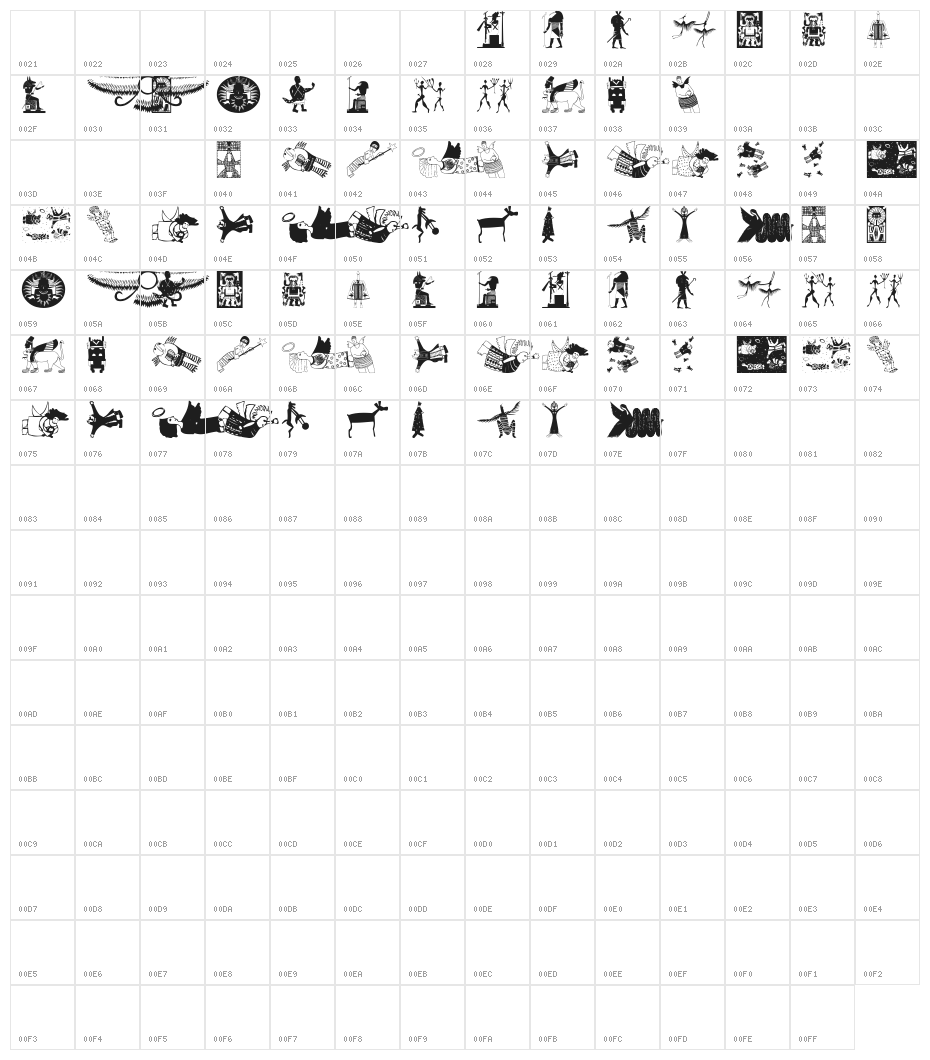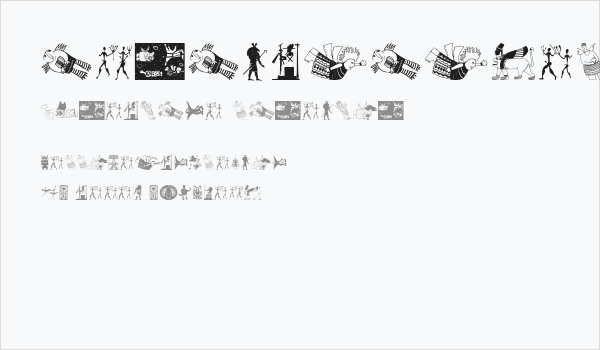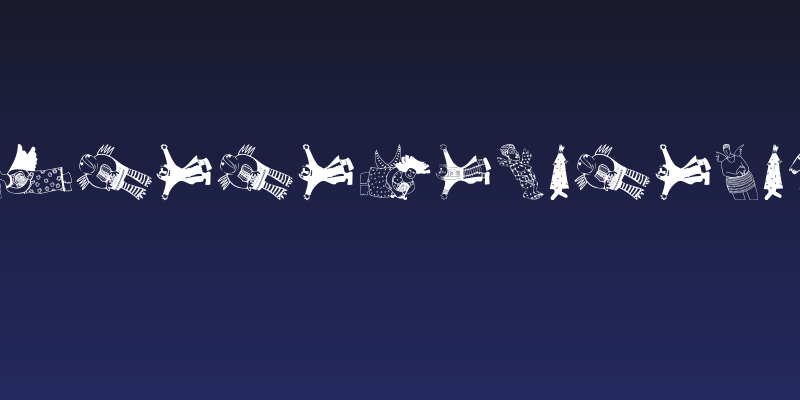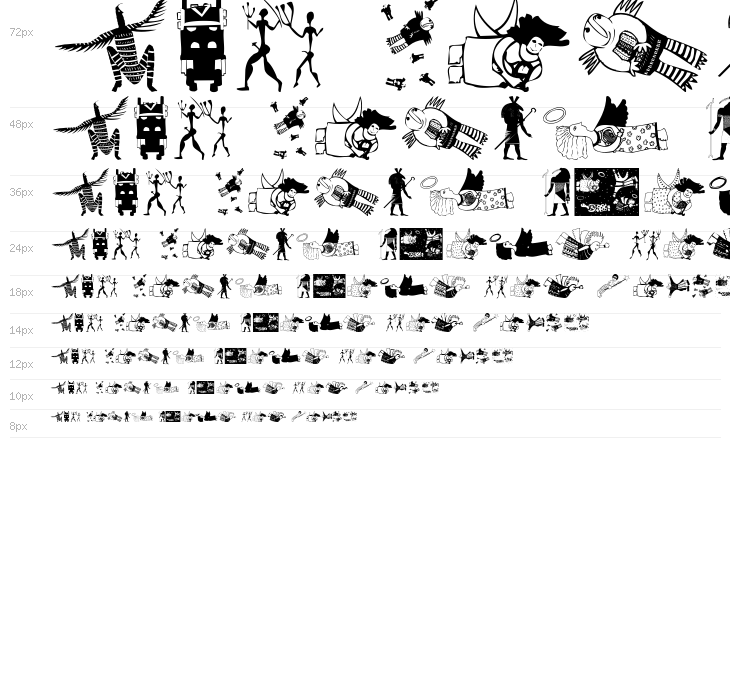
AfricanAngelsAndSpirits Font
AfricanAngelsAndSpirits Description
A decorative display font composed of intricate illustrations inspired by African and ancient spiritual iconography, featuring stylized figures, animals, deities, and symbolic motifs in a bold, high-contrast black and white style.
| Overall Style | Decorative, Ethnic, Spiritual |
| Use Case | Logos, Headlines, Posters, Thematic graphics |
| Proposed Projects | Posters, book covers, educational materials, cultural event branding, art projects. |